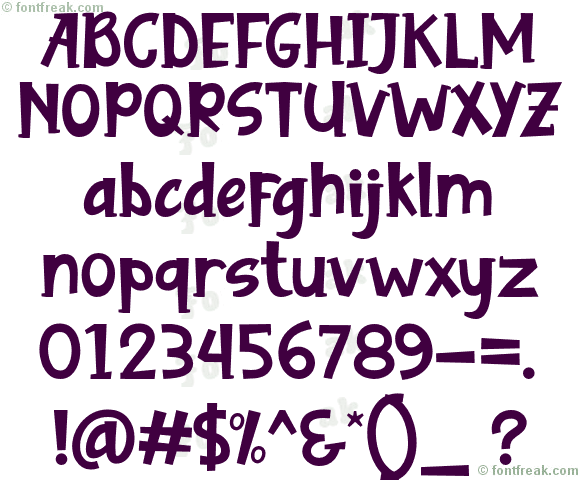
Ramesant
Ramesant, designed by Situjuh Nazara, is a unique display font that captures attention with its playful and whimsical style. This font is categorized as a decorative typeface, making it ideal for projects that require a creative touch. Ramesant features a bold stroke weight and moderate contrast, which contributes to its robust appearance. The letterforms are rounded with a slightly irregular baseline, giving the font a hand-drawn feel that adds to its charm. The spacing is well-balanced, allowing for easy readability while maintaining a lively character.
Best suited for various creative applications, Ramesant shines in projects such as wedding invitations, where its whimsical flair can enhance the romantic ambiance. It also works wonderfully for children's books, adding a fun element that captures young readers' imaginations. Restaurant menus can benefit from its distinctive look, making dishes stand out and appealing to patrons. Additionally, Ramesant is perfect for social media graphics and promotional materials, where grabbing attention is crucial.
The target audience for this font includes graphic designers, small business owners, and content creators who are looking to inject a sense of personality into their work. Whether you are designing a playful brand logo or crafting engaging social media posts, Ramesant provides a versatile solution that stands out.
What truly sets Ramesant apart is its ability to balance creativity with functionality. The font exudes a sense of joy and warmth, making it an excellent choice for any project that seeks to convey friendliness and approachability. For those interested in incorporating this delightful typeface into their designs, the Ramesant font free download makes it easily accessible for all creative endeavors.